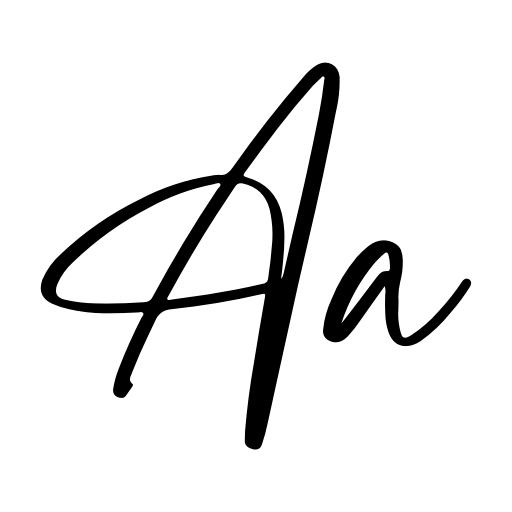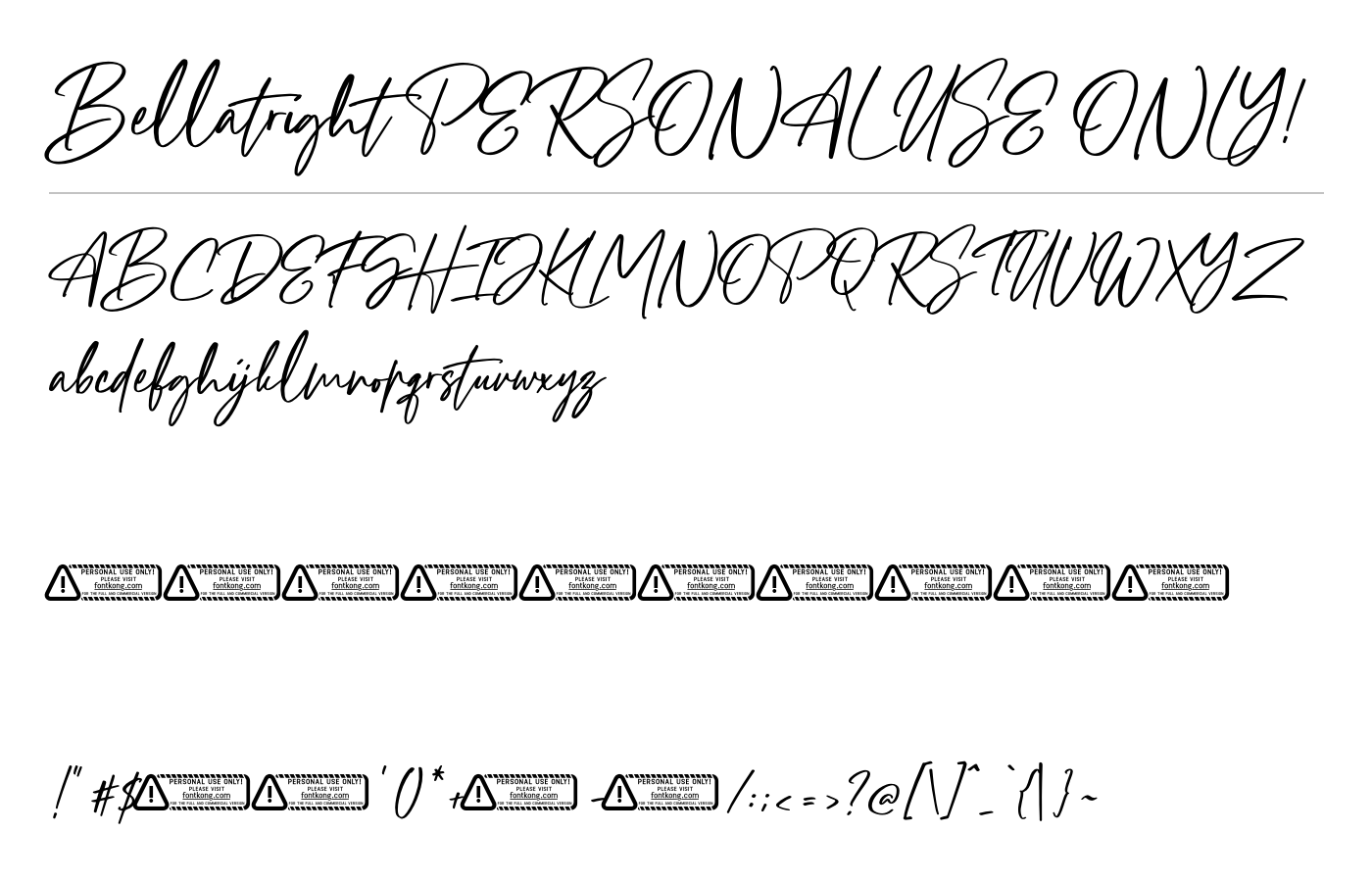
Bellatright is a lively script font featuring elegant, flowing letterforms with a handwritten feel. Its slender, slightly irregular strokes and dynamic, connected characters create a modern, playful vibe that is perfect for personal branding, invitations, and creative projects seeking a casual yet stylish touch. This font works well in headlines and decorative text where a warm, approachable personality is desired.
Bellatright PERSONAL USE ONLY! Font
About Bellatright PERSONAL USE ONLY! Font